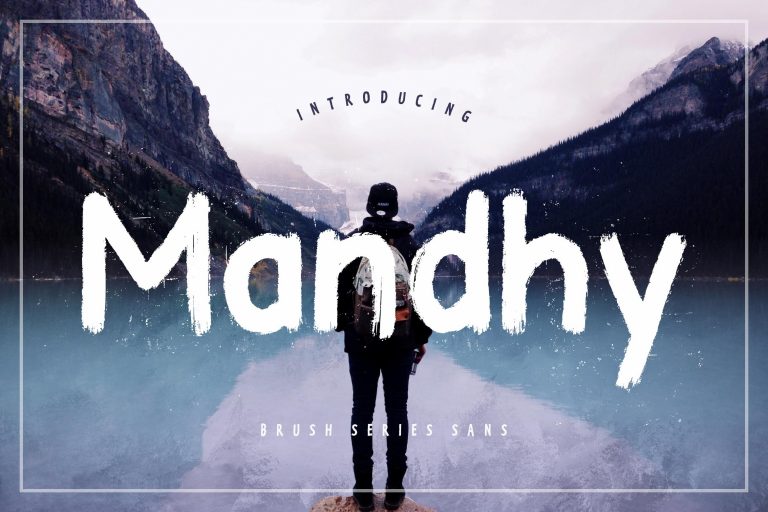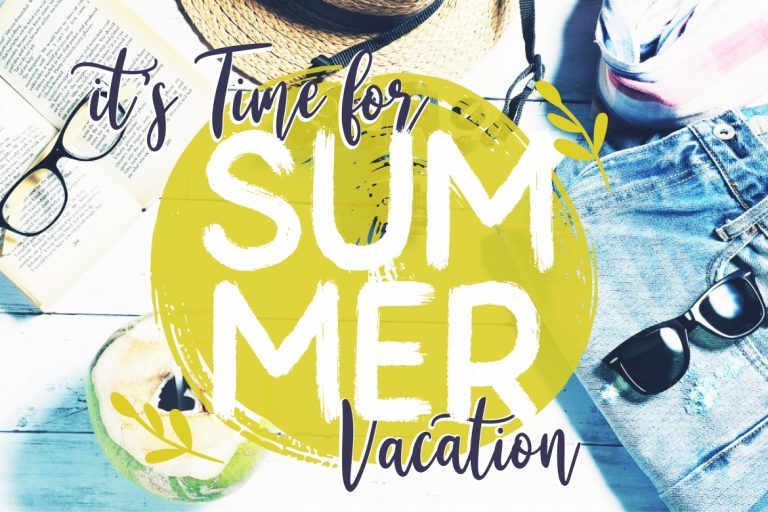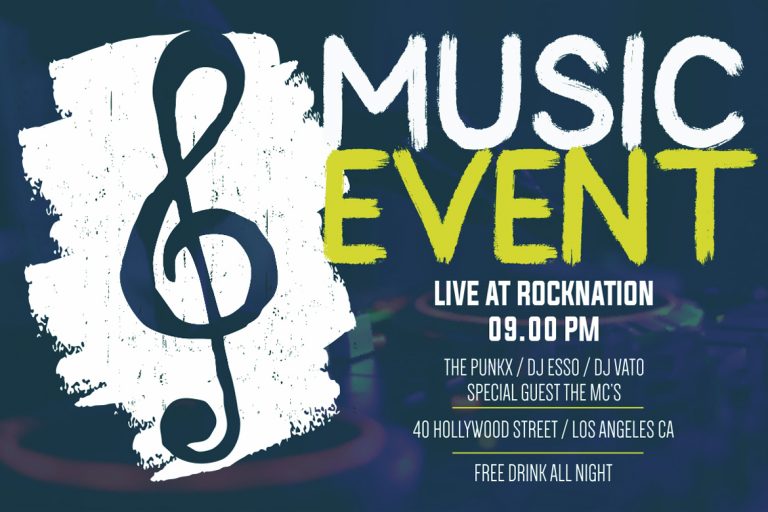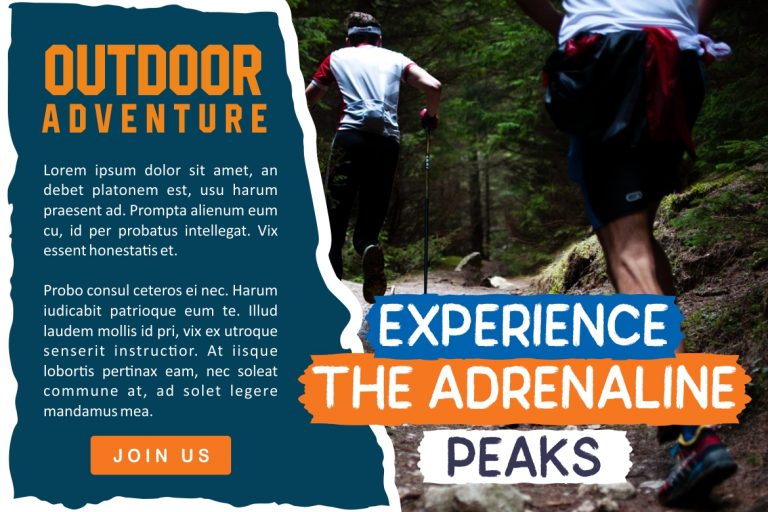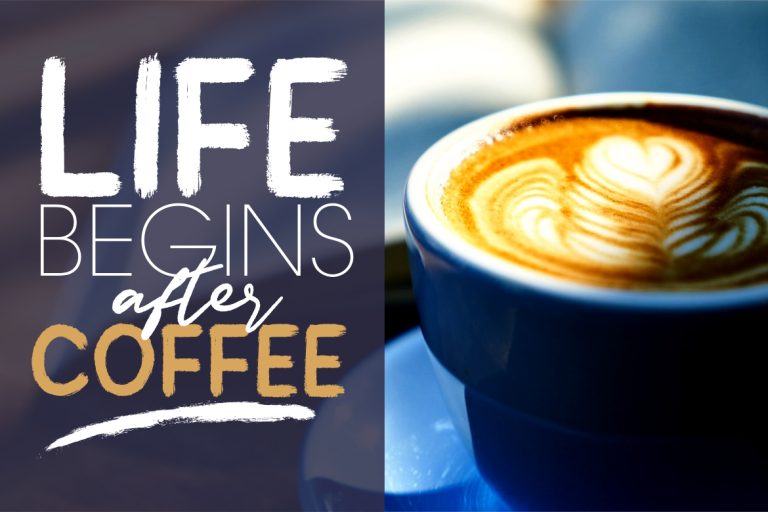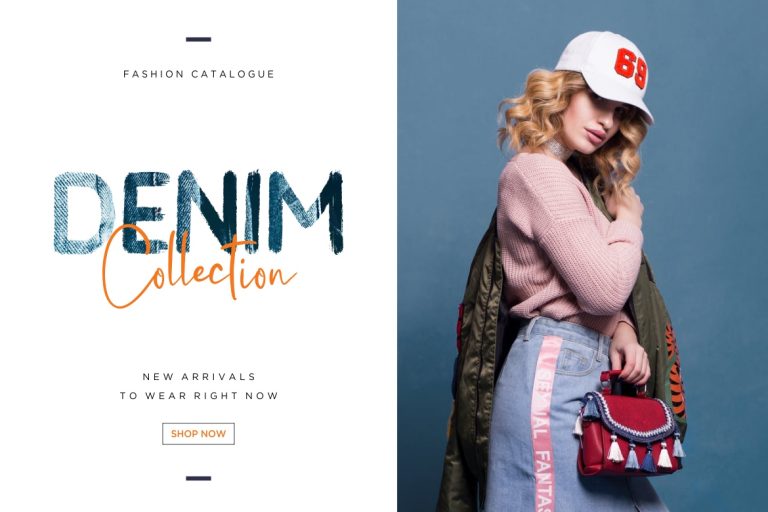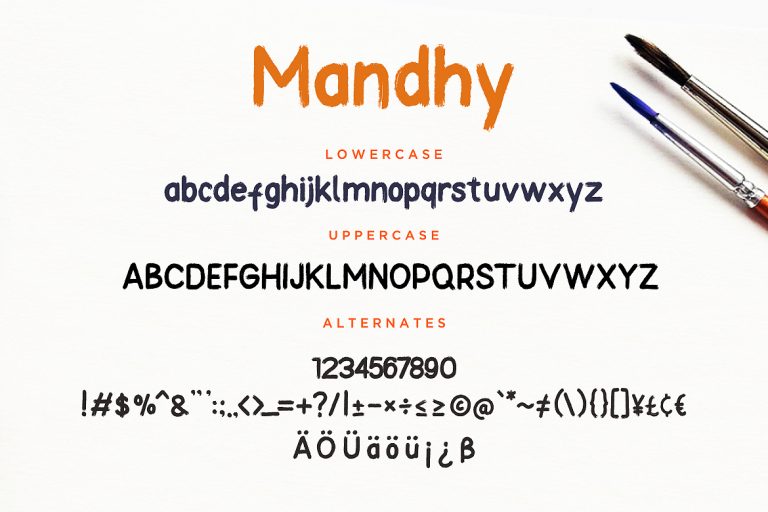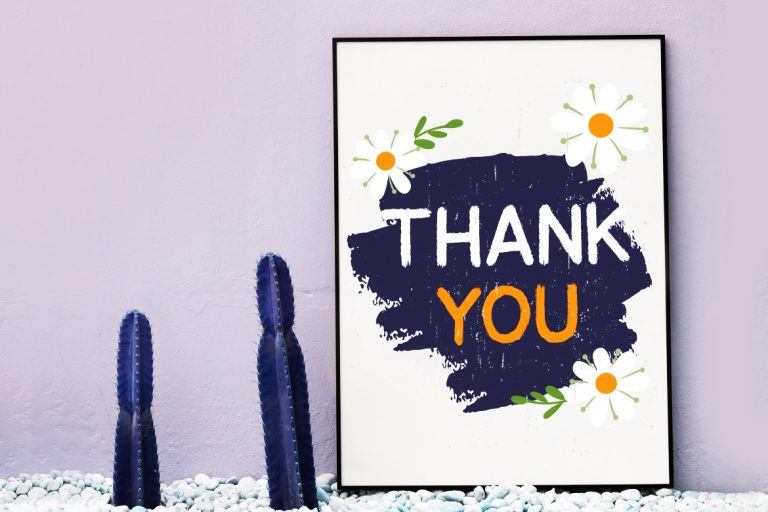
Mandhy Brush is serif sans fancy font with natural movement and brush style.
Mandhy Brush is perfect for branding projects, logo, wedding designs, social media posts, advertisements, product packaging, product designs, label, photography, watermark, invitation, stationery and any projects that need handwriting taste.
- Standard glyphs
- Ligature
- Fonts include multilingual support for; ä ö ü Ä Ö Ü ß ¿ ¡
Mandhy Brush Series Sans